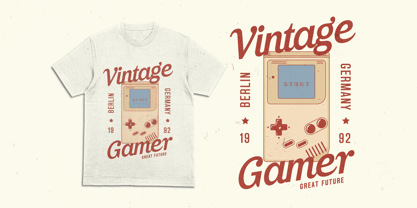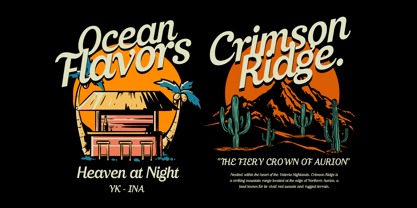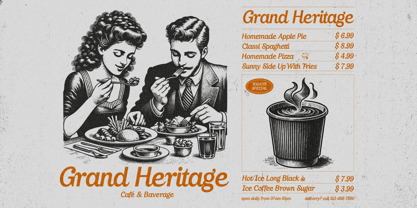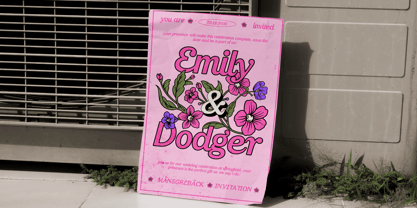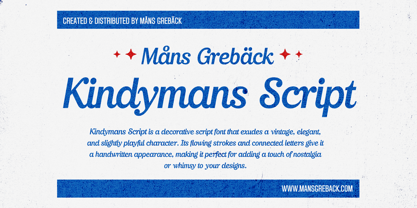
Kindymans Script
by Mans Greback
The Kindymans Script Font Family was designed by Måns Grebäck and published by Mans Greback. Kindymans Script contains 4 styles and family package options. More about this family
Kindymans Script is a friendly and flowing sans/script fusion typeface.
The rounded forms and consistent slant gives the letters a smooth and balanced quality, suitable for both short and longer texts. It would be ideal for branding or design that aims for an approachable, yet sophisticated tone. Imagine it on a cafe sign, a wedding invitation or product packaging.
The font is built with advanced OpenType functionality and guaranteed top-notch quality, containing stylistic and contextual alternates, ligatures and more automatic and manual features; all to give you full control and customizability.
It has extensive lingual support, covering all Latin-based languages, from North Europa to South Africa, from America to South-East Asia. It contains all characters and symbols you'll ever need, including all punctuation and numbers.
This is a casual yet elegant lettering by Mans Greback.
Måns Grebäck is a type designer and font creator specializing in script typography, but with a portfolio containing a vast selection of styles. Typefaces from Måns Grebäck are used as company and product logotypes, as well as headlines and in advertisement by a wide range of industries world-wide. Founded by Måns Grebäck in 2010, Mans Greback AB originally went under the name of Mawns Fonts and later Aring Typeface AB. While the foundry has its seat Örebro, Sweden, Måns also lives in Portugal. The Premium Foundry page can be viewed Here.